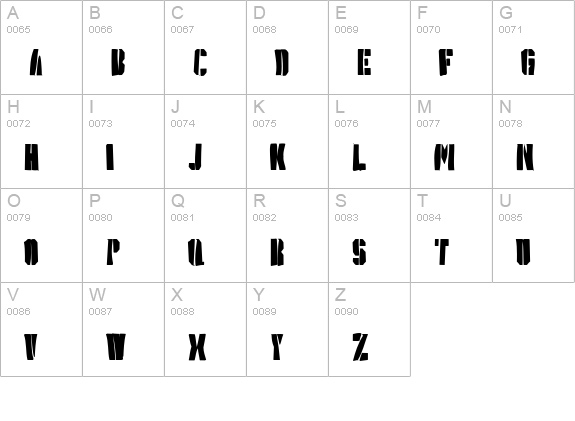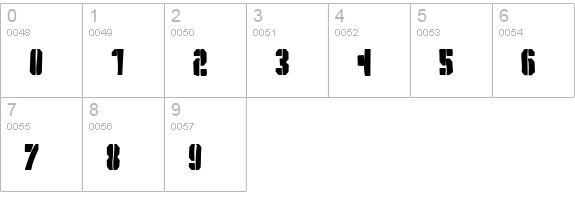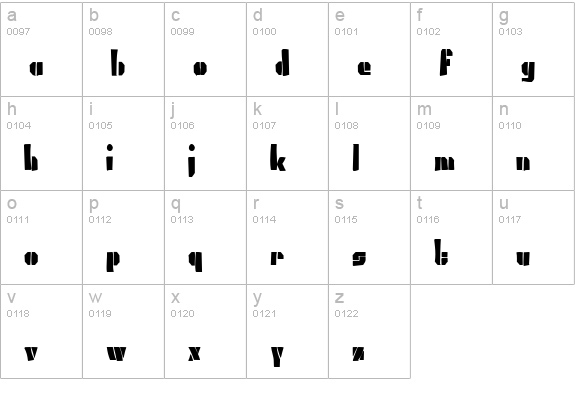
President Gas Ink Font Details
President Gas Ink font is a bold and dynamic typeface that exudes strength and authority. Its strong lines and distinctive style make it perfect for creating impactful designs that demand attention. This unique font is ideal for headlines, posters, and branding projects that require a powerful and eye-catching look. What sets President Gas Ink font apart is not only its bold design, but also the fact that it is available for free download at FontsMarket.com. This means that you can easily access and use this impressive font in your projects without any cost involved. Whether you are a professional designer looking to add a bold touch to your work or a casual user in need of a striking font for a personal project, President Gas Ink font is a versatile and freely available option that will help you make a statement.